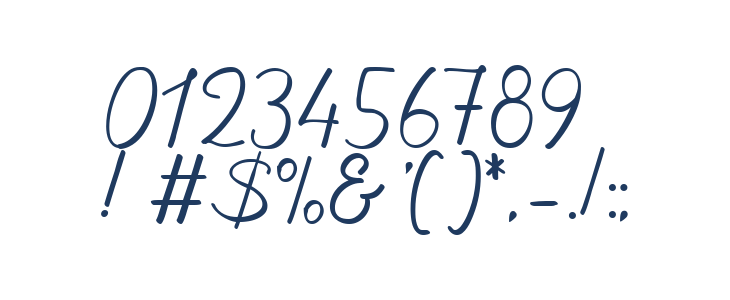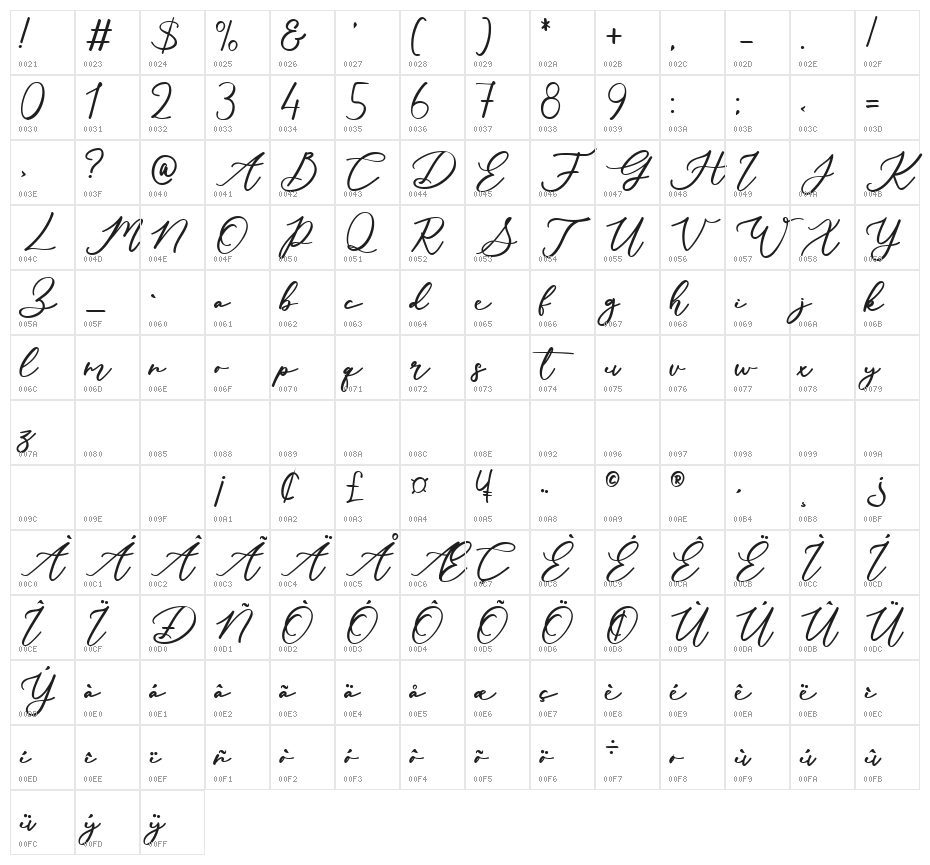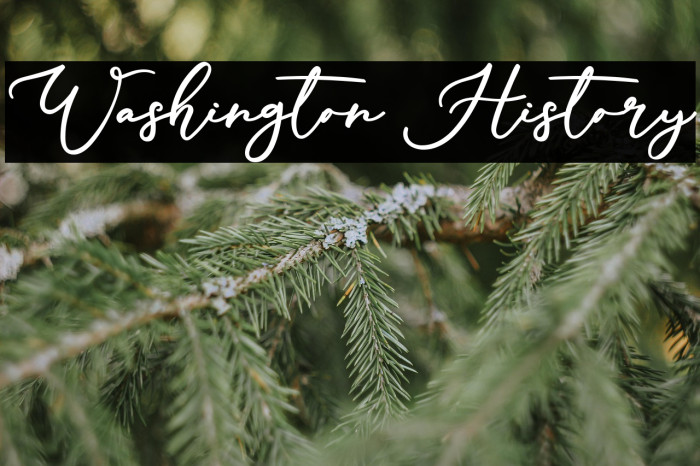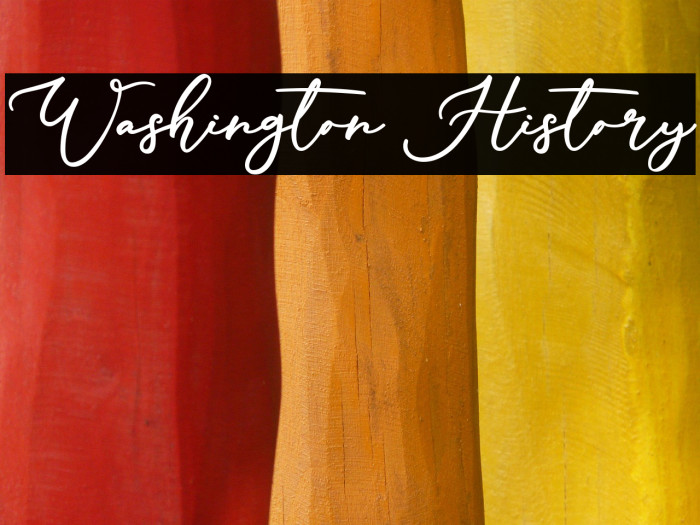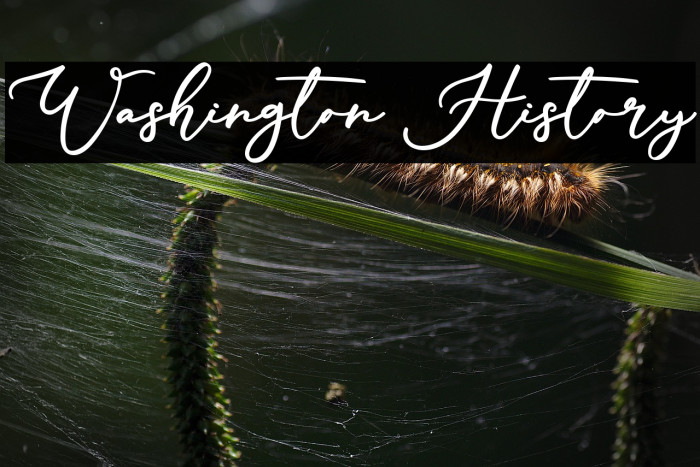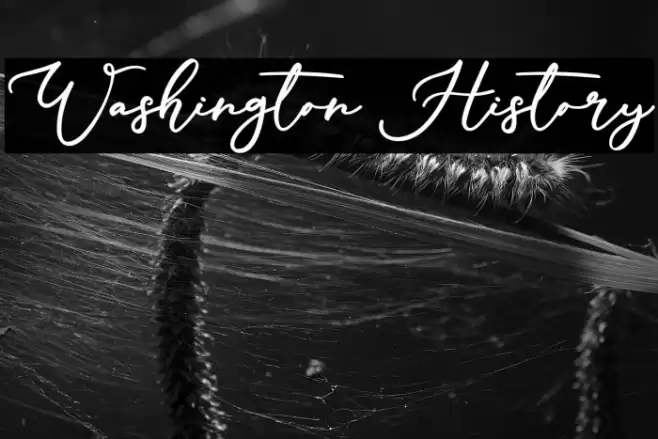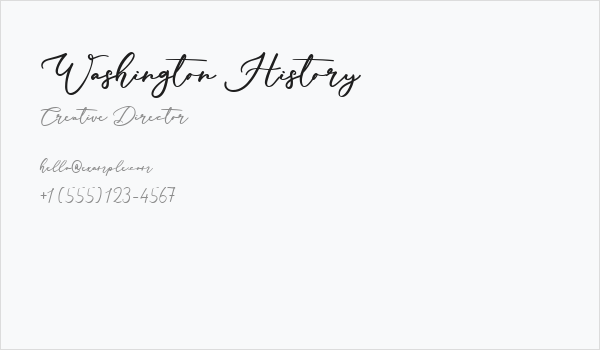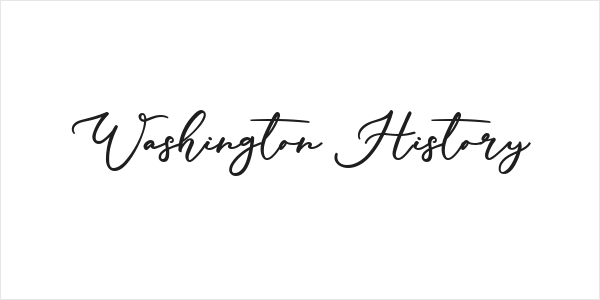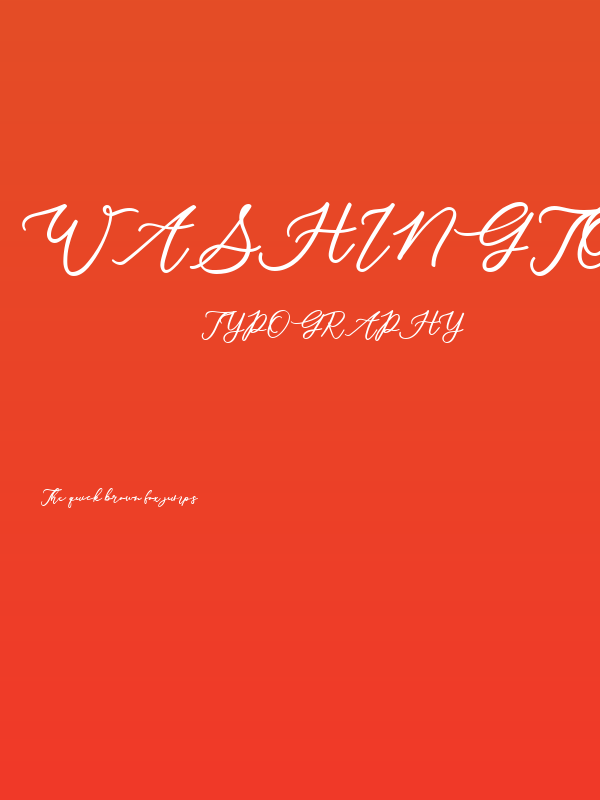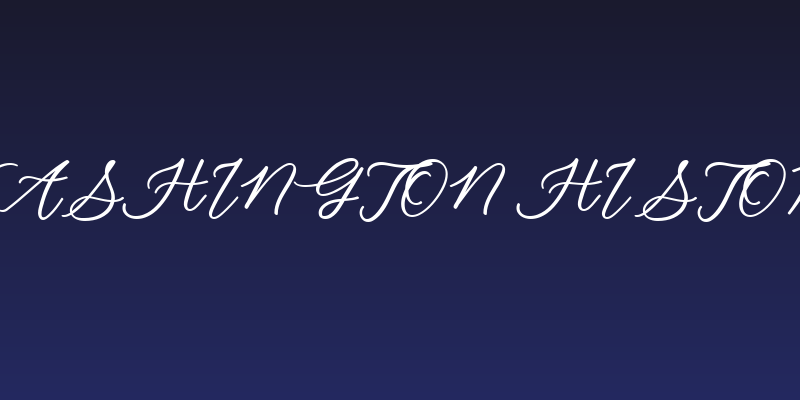
Washington History Font
Washington History Description
This font features a flowing, cursive style that mimics elegant handwriting. The uppercase letters are slightly more formal, with graceful loops and curves, while the lowercase letters maintain a consistent fluidity that enhances readability. The numerals and special characters are designed to complement the script, maintaining the same smooth and connected strokes. This font exudes a sense of sophistication and charm, making it ideal for projects that require a personal touch. The overall design is balanced, with a moderate contrast in stroke thickness, adding to its legibility and aesthetic appeal.
| Use Case | Logos, Invitations, Personal branding |
| Proposed Projects | Ideal for wedding invitations, greeting cards, personal branding, and elegant packaging. |